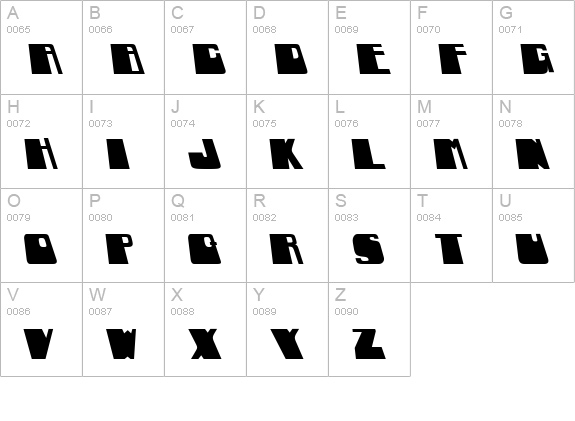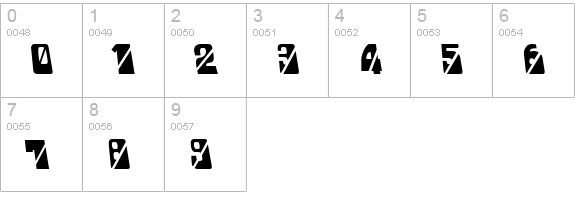
RED Plain Font Details
Introducing the mesmerizing RED Plain font, a stunning and versatile typeface that will capture your imagination with its bold and vibrant presence. This font is the perfect choice for those seeking a modern and minimalist aesthetic, while still maintaining a touch of sophistication. RED Plain font offers a clean and crisp design, making it ideal for a wide range of design projects, from logos and branding to websites and social media graphics. Its simplicity and elegance make it incredibly versatile and adaptable to any creative vision. What sets RED Plain font apart is not only its visually striking appearance but also its accessibility. It is available for free download at FontsMarket.com, allowing anyone to easily access and utilize this exceptional typeface. Whether you are a professional designer or a passionate DIY enthusiast, this font grants you the freedom to elevate your creative projects without any obstacles. With RED Plain font, you can effortlessly bring your ideas to life. Its legibility and readability ensure that your message will be conveyed with clarity and impact. The carefully crafted letterforms and balanced proportions make for a seamless reading experience, captivating the audience and leaving a lasting impression. Embrace the power of RED Plain font and unleash your creativity. Whether you're crafting a captivating headline, designing a magazine layout, or creating eye-catching advertisements, this font will effortlessly enhance your work and make it stand out from the crowd. Its timeless appeal and versatility make it a must-have in any designer's toolkit. Download RED Plain font for free at FontsMarket.com and embark on a journey of creativity and self-expression. Let your imagination run wild as you explore the endless possibilities this font offers. Elevate your designs and make a lasting impact with the captivating beauty of RED Plain font.